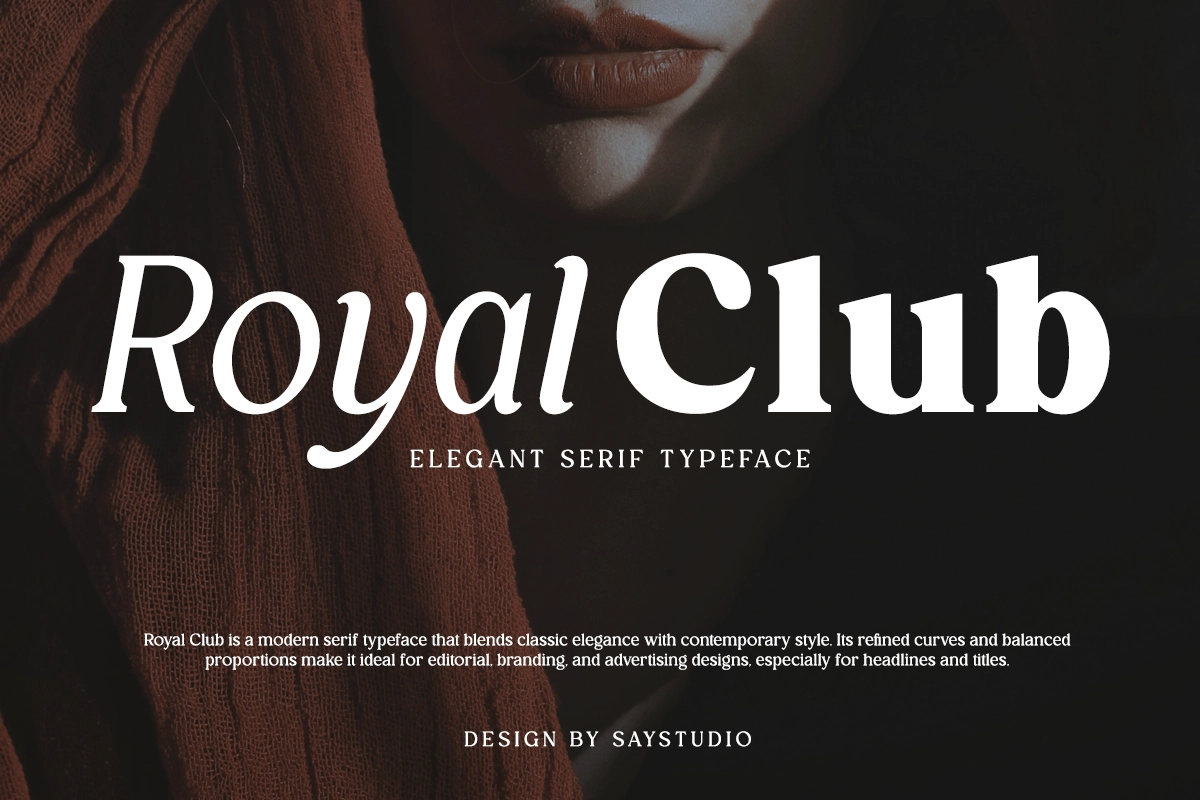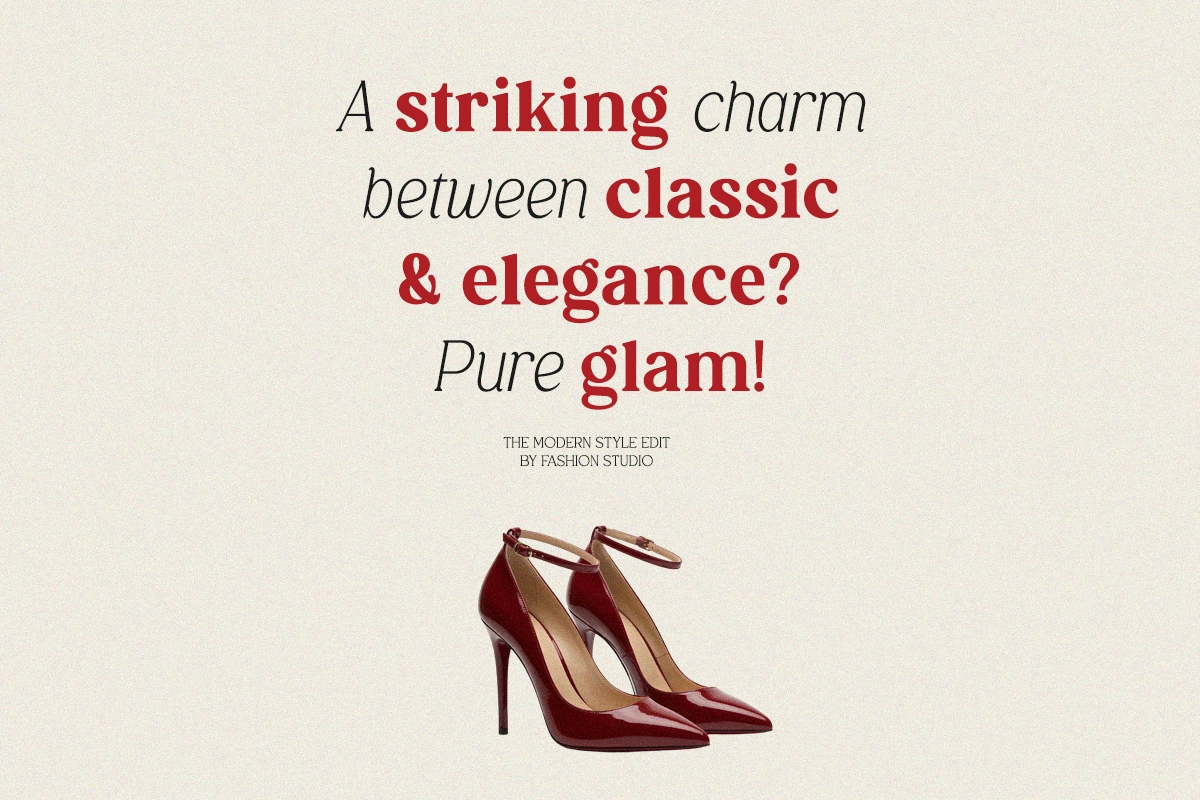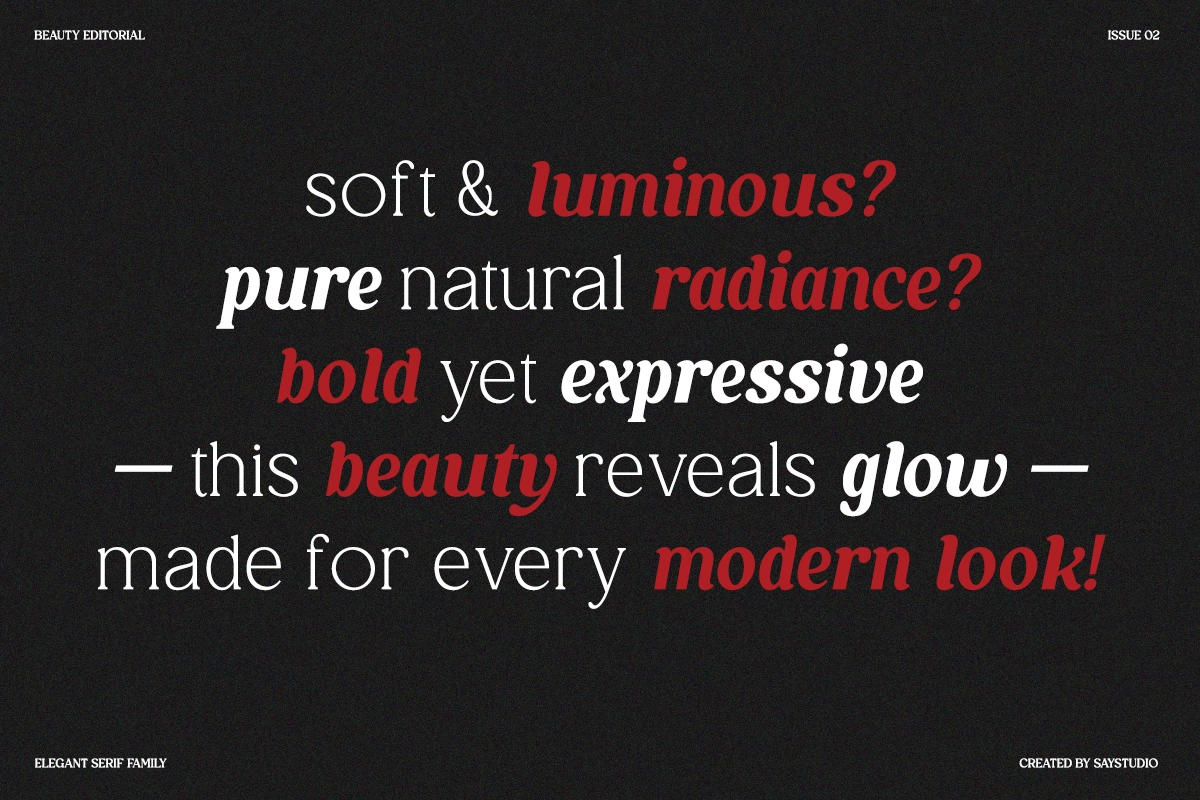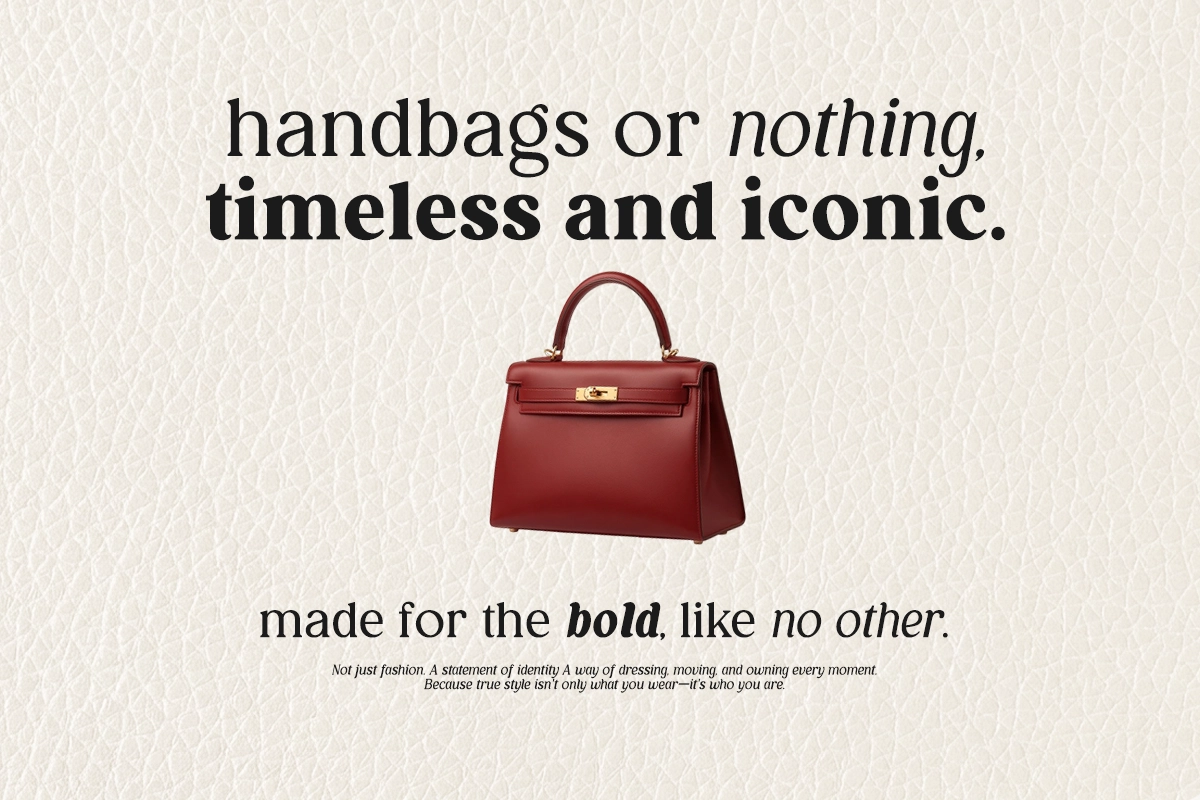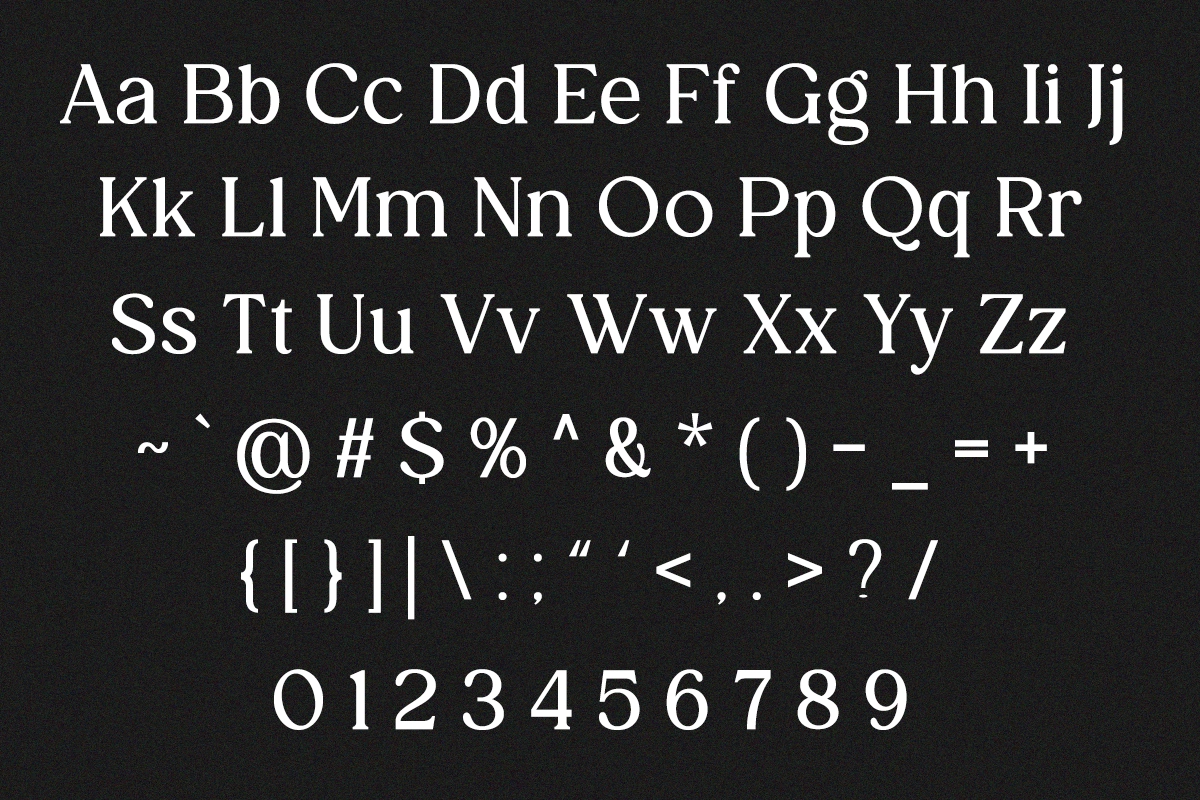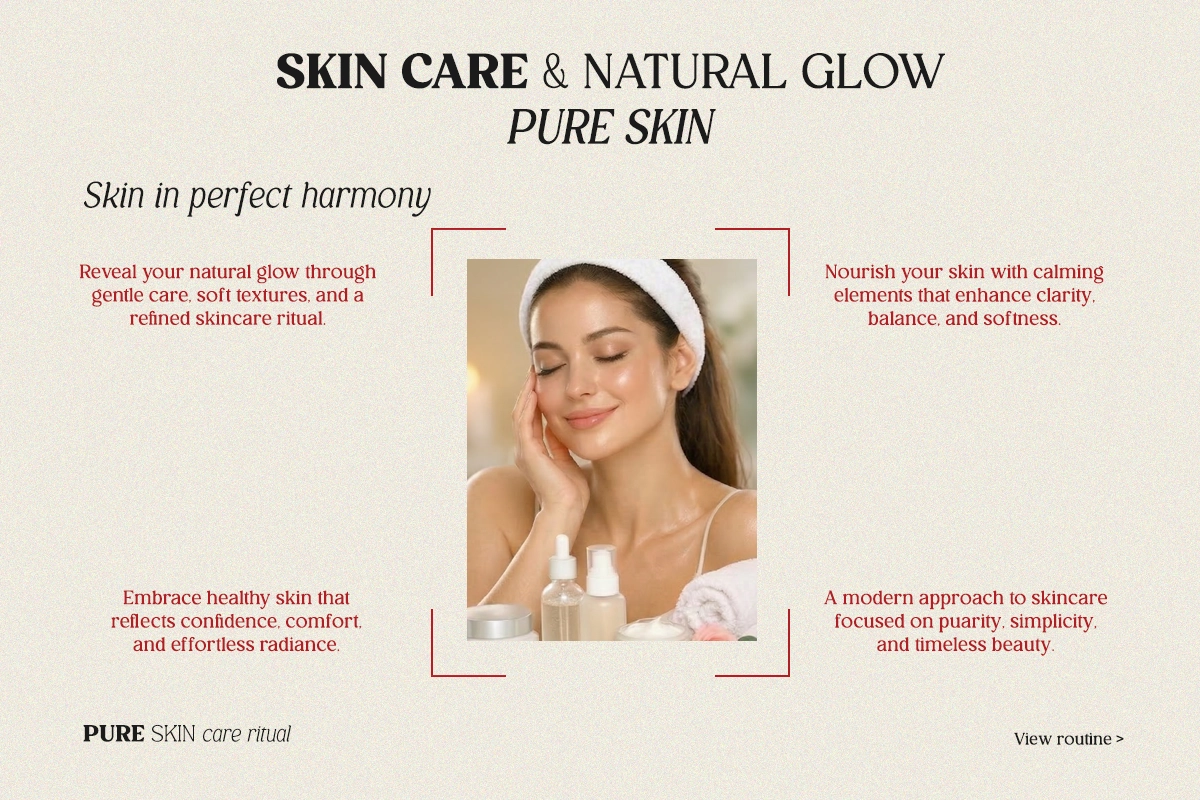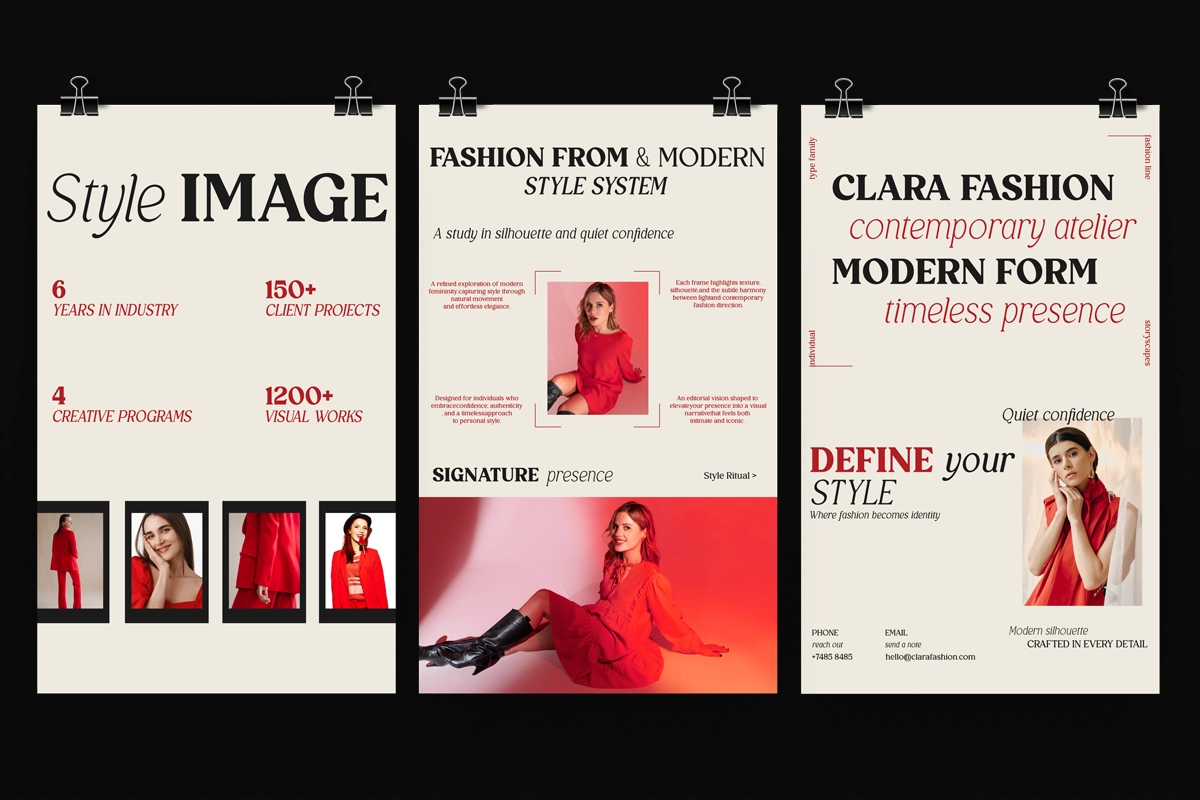
Royal Club – Elegant Editorial Serif Font
Royal Club – Elegant Editorial Serif Font is a refined serif family crafted to balance timeless sophistication with modern editorial aesthetics. Its high-contrast strokes, smooth curves, and carefully structured proportions create a luxurious and confident visual presence across any layout.
With multiple weights and styles, Royal Club offers flexibility for building clear typographic hierarchy—from striking headlines to elegant body text. Perfect for fashion editorials, luxury branding, advertising, and premium packaging, this typeface delivers a polished and contemporary look with a classic foundation.
- Multiple Weights & Styles
- Numerals & Symbols